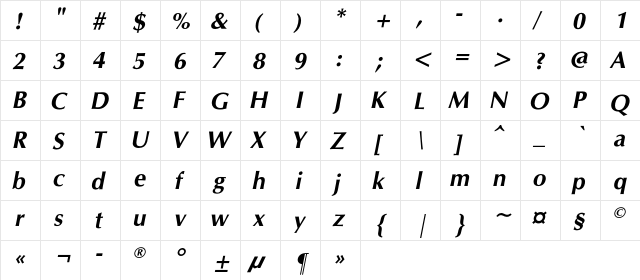
CG-OmegaC Bold Italic
Design Context for CG-OmegaC Typeface
CG-OmegaC is a composed and adaptable typeface that performs quietly and consistently across a wide range of design contexts. The slanted form adds forward momentum and visual energy. The heavy weight commands attention and anchors typographic hierarchies.
Pro Tip: Try CG-OmegaC for annotation and caption copy alongside an upright companion — the contrast in angle creates a dynamic but ordered typographic system.